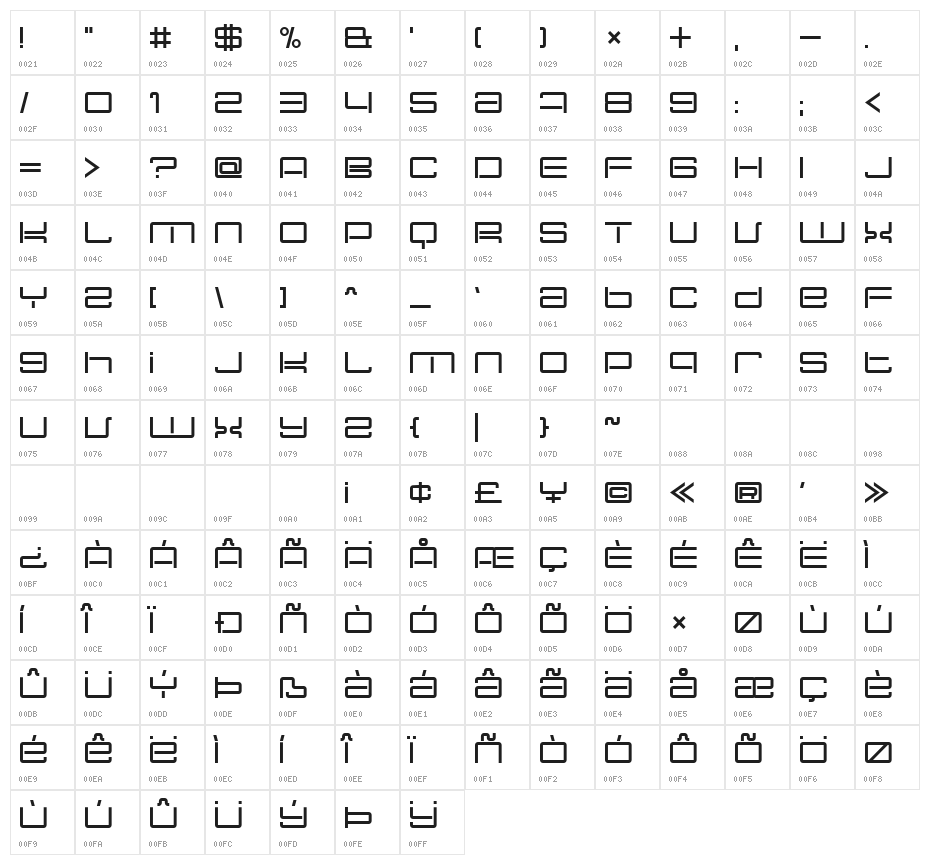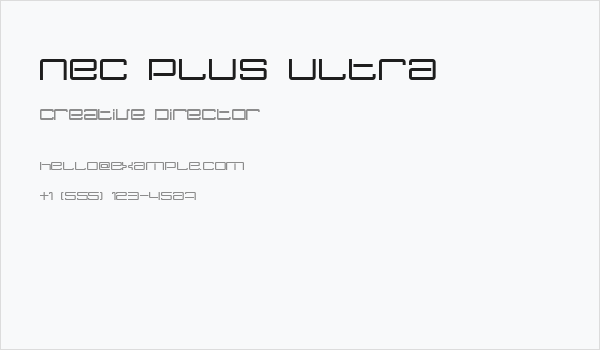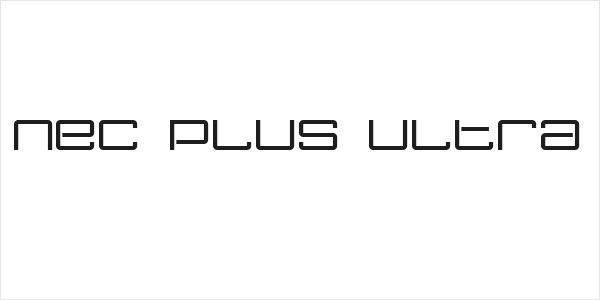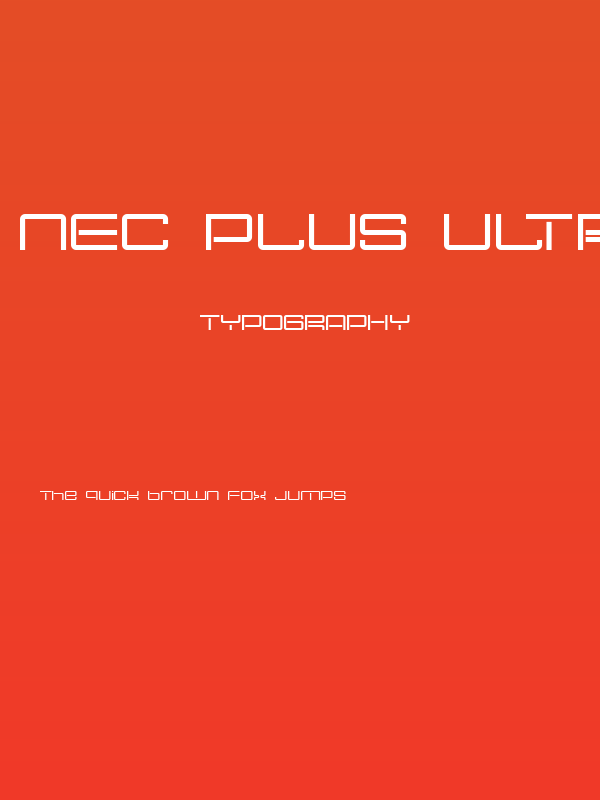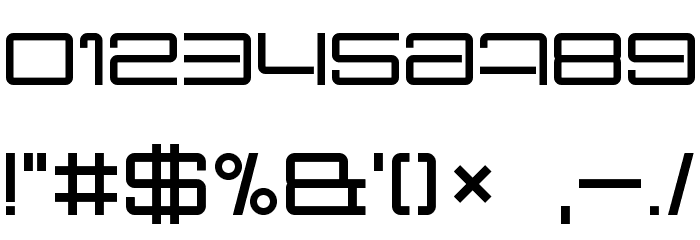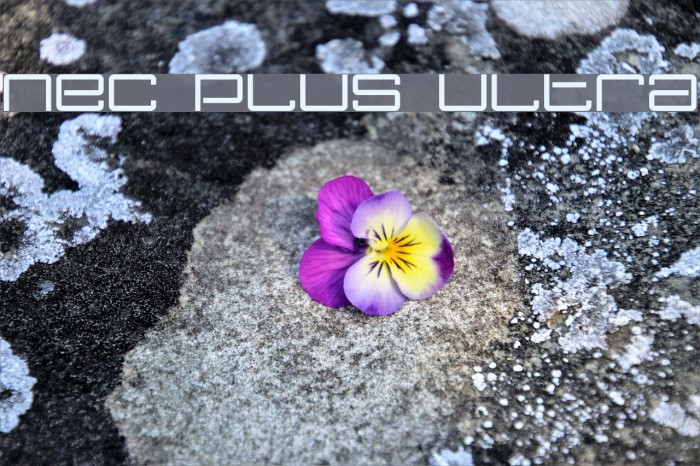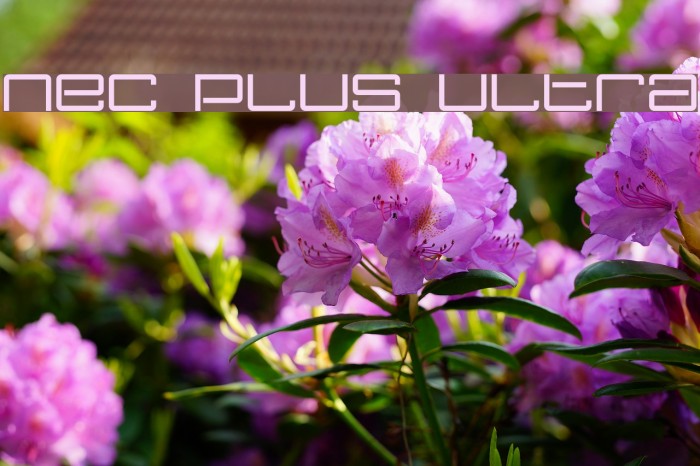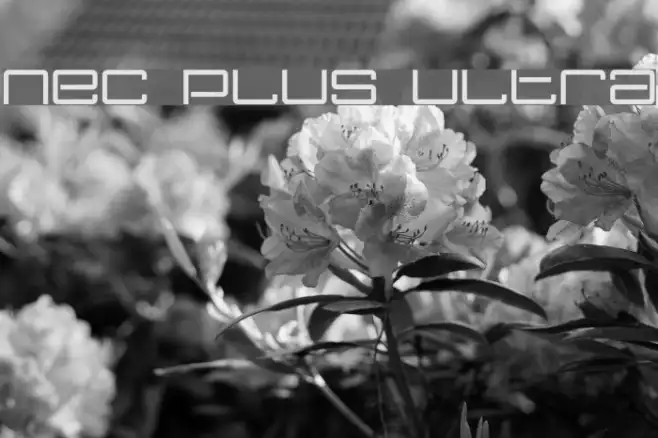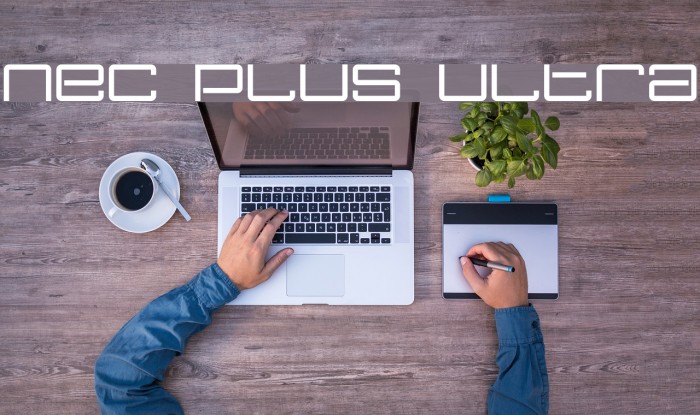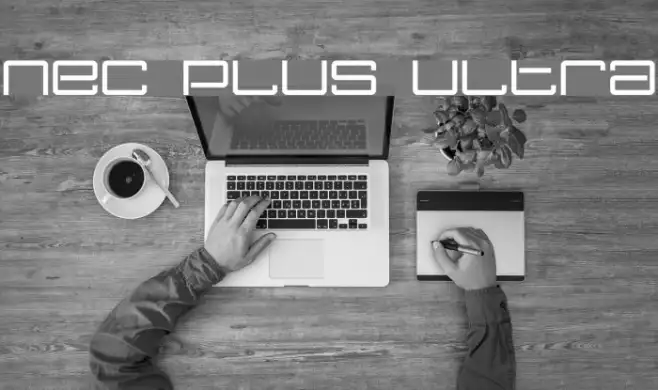
Nec plus ultra Font
Nec plus ultra Description
This font features a modern, geometric design with a futuristic aesthetic. The characters are constructed with a consistent line weight, creating a uniform appearance. The uppercase and lowercase letters share a similar structure, enhancing the font's cohesive look. The numerals and special characters maintain the same geometric style, ensuring visual harmony across all elements. The font's clean lines and minimalistic design make it suitable for contemporary projects that require a sleek and innovative touch.
| Use Case | Logos, Headlines, Digital interfaces |
| Proposed Projects | Ideal for technology branding, sci-fi themed projects, modern logos, and digital interfaces. |